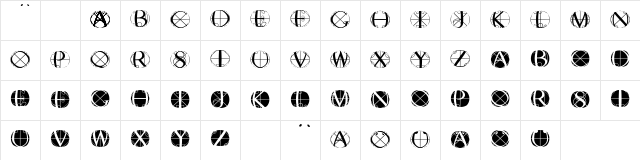
FisheyeButtonsTwo Regular
Design Context for FisheyeButtonsTwo Typeface
FisheyeButtonsTwo is a composed and adaptable typeface that performs quietly and consistently across a wide range of design contexts.